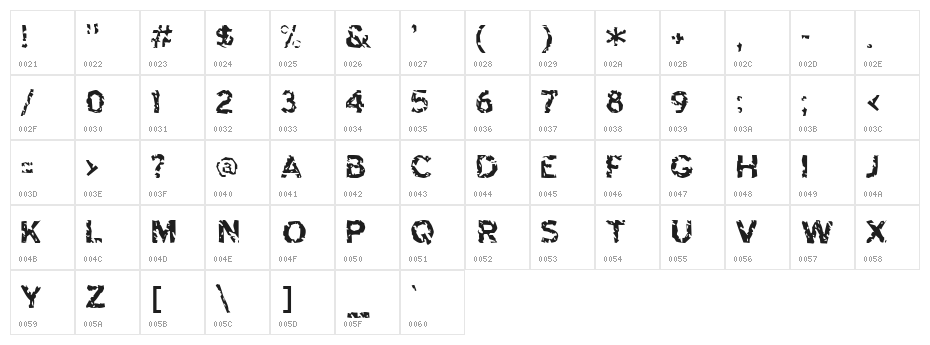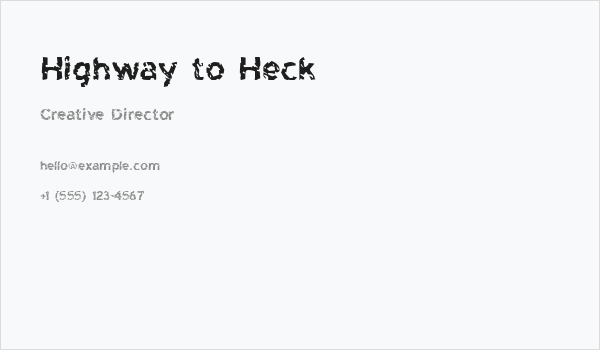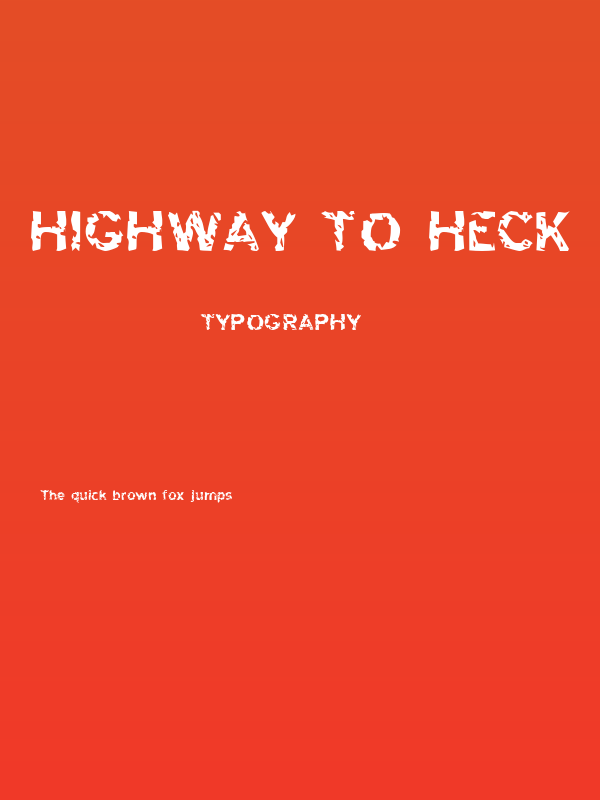
Highway to Heck Font
Highway to Heck Description
This font features a rugged, distressed style with irregular edges and a bold presence. The characters appear as if they are chipped or eroded, giving a gritty and rebellious aesthetic. Each letter and number is uniquely designed with a rough texture that suggests a sense of chaos and unpredictability. The font maintains a consistent weight throughout, ensuring readability despite its unconventional appearance. The special characters are equally stylized, maintaining the overall theme of ruggedness and edginess.
| Use Case | Logos, Posters, Headlines |
| Proposed Projects | Ideal for music album covers, edgy posters, or branding for extreme sports events. |